23 Modern Wedding Fonts for Stunning Wedding Designs
Modern Wedding Fonts help designers, couples, and stationery brands create clean invitations, refined signage, and stylish wedding branding. This collection covers elegant serifs, signature scripts, soft handwritten styles, and minimal sans fonts for contemporary wedding suites.
Clean Sans Serif Modern Wedding Fonts
These modern wedding fonts use slim strokes, wide spacing, and minimal sans-serif forms for polished invitations, venue cards, logos, and editorial-style stationery.
Missable Font
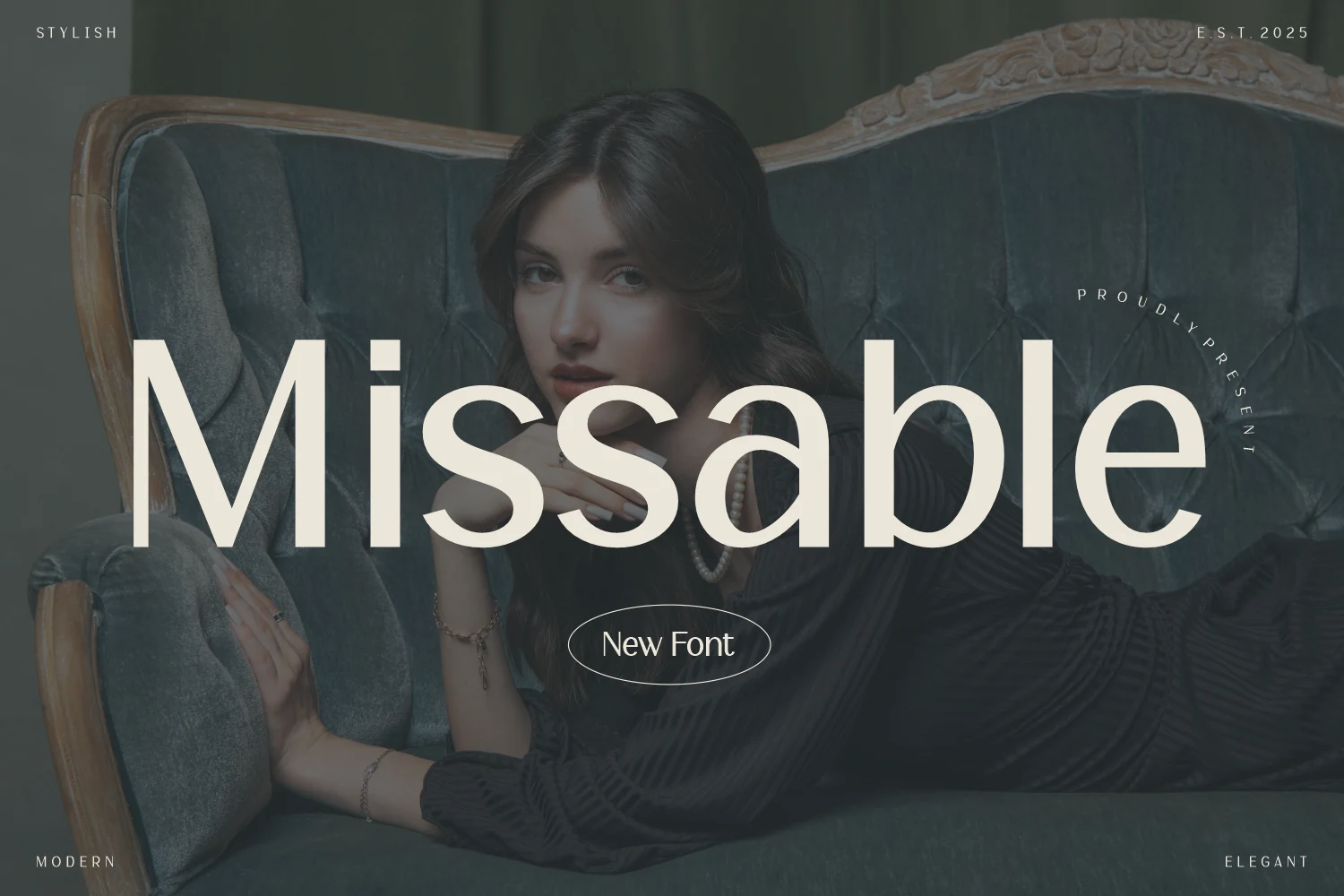
Missable Font takes a restrained sans-serif approach: wide, clean strokes, soft curves, and a high x-height give the letters a calm editorial presence. The single-storey forms and open spacing keep the wordmark polished rather than decorative, which suits Modern Wedding Fonts that need to feel current without losing formality.
Use it where typography has to anchor the layout—names, venue marks, suite headers, or refined branding. Its minimal shapes work best with strong contrast against textured photography or paper stock; avoid crowding the letters, because the broad proportions need clear margins to hold their quiet luxury.
Sauvage Font
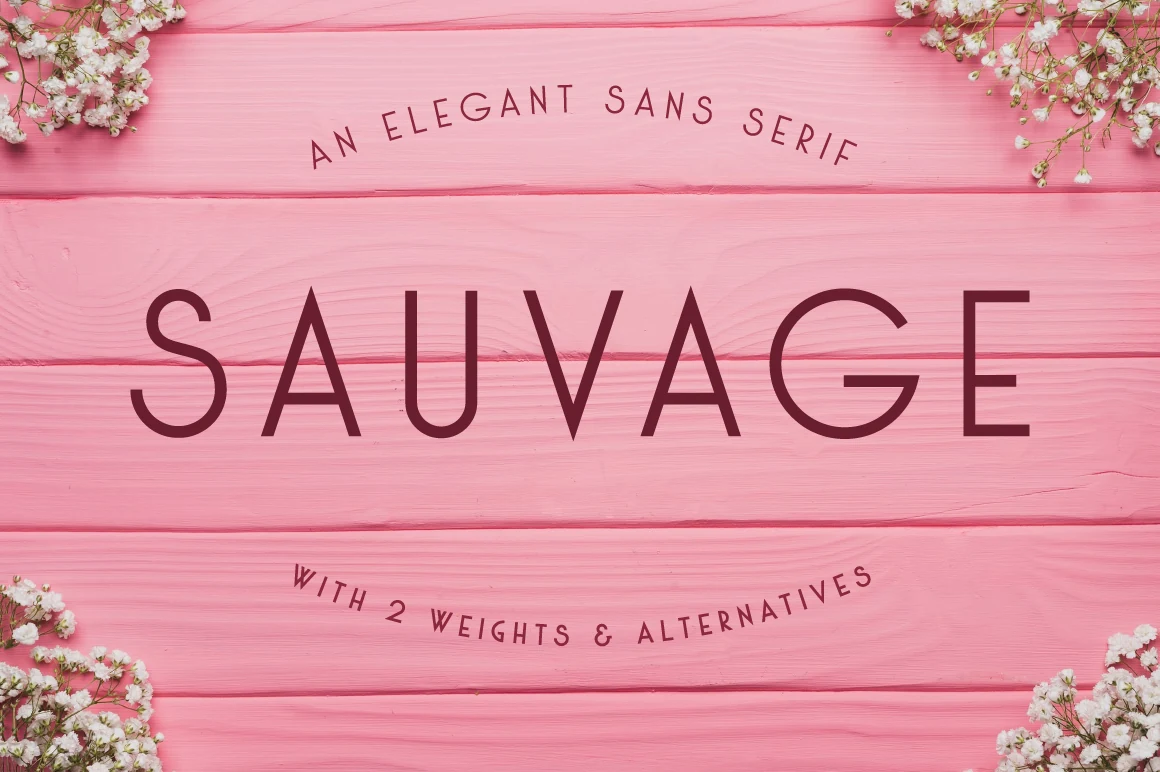
Sauvage Font has a sleek all-caps sans serif look, with slim strokes, sharp diagonals, and generous spacing that gives each letter a calm, upscale presence. That balance of simplicity and poise makes it a natural fit for Modern Wedding Fonts, especially when you want typography that feels polished without drifting into ornament.
Its clean structure works best in titles, logos, and magazine-style headings where the wide proportions have room to breathe. Try it with increased tracking and plenty of margin around the line; the restrained shapes hold their elegance best when the layout stays uncluttered and supporting text remains understated.
Moventra Font
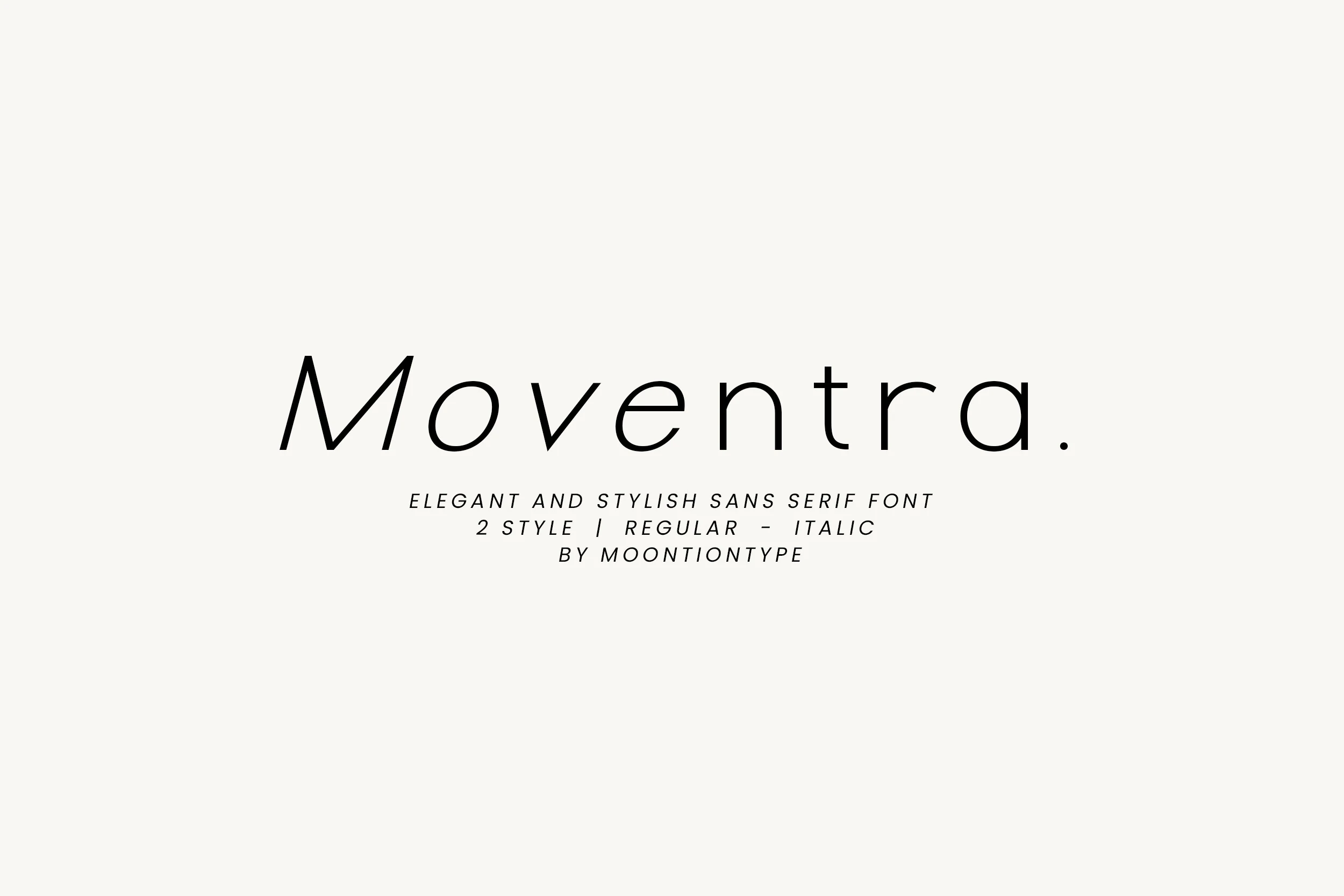
Moventra Font has a restrained luxury to it, built from thin strokes, airy spacing, and smooth rounded shapes that keep the sans serif structure feeling soft instead of clinical. The gently slanted presentation, open counters, and clean terminals give the wordmark a poised editorial rhythm that suits refined layouts.
In a collection of Modern Wedding Fonts, Moventra stands out when you want elegance without flourishes. It works especially well for invitation headings, venue cards, and understated branding, and it benefits from generous margins and a clear size hierarchy so its light weight and long curves stay crisp rather than disappearing into the layout.
Editorial Serif Modern Wedding Fonts
This group focuses on refined serif letterforms with contrast, sculpted curves, and formal balance for luxury invitations, brand marks, and elegant wedding layouts.
Rergian Font
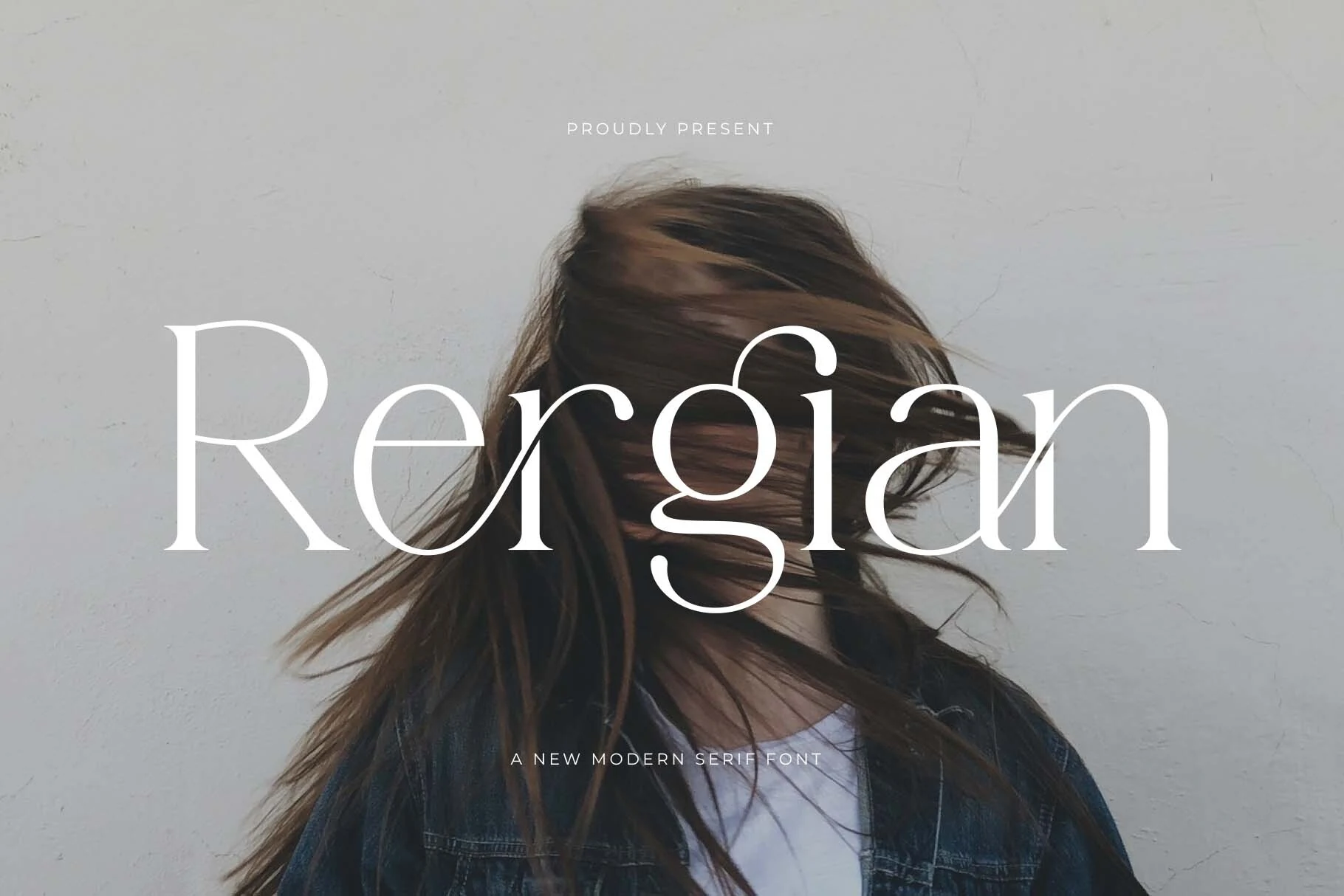
Rergian Font has a refined display serif look, with elongated stems, fine contrast, and graceful curves that give the wordmark a light, almost floating rhythm. The sweeping terminals and custom-feel joins make it especially appealing for Modern Wedding Fonts, where a title needs to feel elegant but still current.
This is a font for statement placement rather than body copy. Use it for names, headers, and packaging fronts where the airy proportions can stay open, and keep surrounding text simple so the swashes and delicate serif details remain the focal point.
Luxora Serif Font
Luxora Serif Font has a poised display presence, with balanced capitals, medium contrast, and slightly rounded serifs that soften the usual stiffness of a formal serif. That blend of classic structure and approachable warmth works especially well in Modern Wedding Fonts, where headings often need polish without looking cold.
It shines in invitation titles, logos, and packaging where the wide uppercase forms can sit confidently on the page. Give it generous spacing and a clear text hierarchy to keep the serif details crisp, then pair it with a light script or restrained sans for contrast rather than using it for dense copy.
Rokina Font
Rokina Font brings a refined serif voice, with high-contrast strokes, flared terminals, and long sculpted curves that give the letters a graceful editorial silhouette. The distinctive descenders and calligraphic tension make it especially compelling for Modern Wedding Fonts when a title needs polish, softness, and a fashion-forward edge.
Within Modern Wedding Fonts, this is better for relaxed details than traditional elegance: welcome signs, quote cards, casual invitations, and upbeat social posts. Let it handle the main phrase, keep line breaks generous, and avoid tight tracking because the chunky curves need space to keep their warm hand-drawn shape.
Conclusion
Choose clean sans fonts for minimal wedding suites, serif fonts for editorial polish, signature scripts for personal name treatments, and decorative calligraphy when the title needs to feel more romantic or ceremonial.